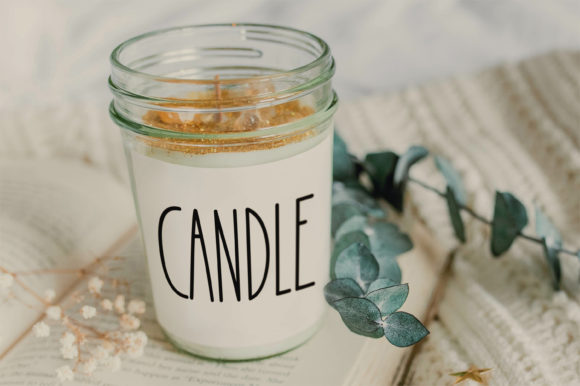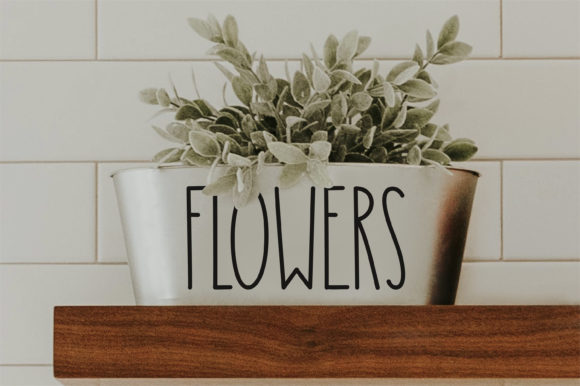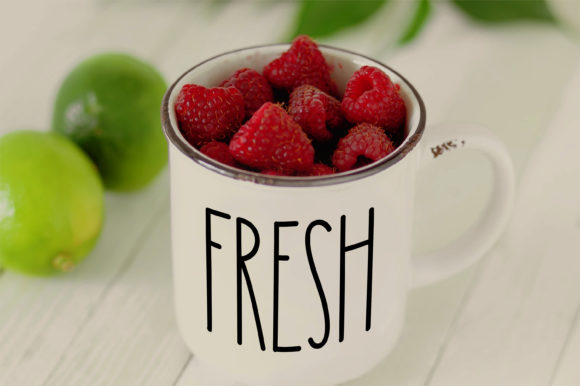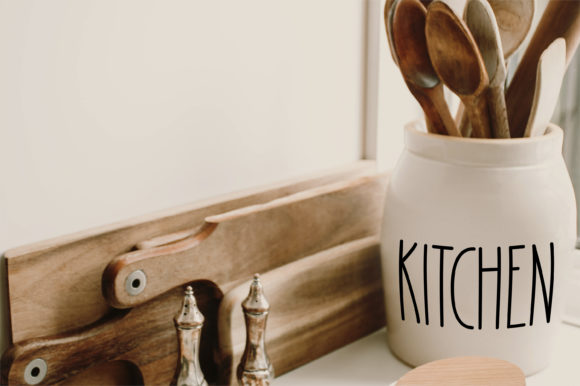
Farmhouse Font
Farmhouse is a tall and skinny handwritten font. It can be used for svg designs, mug designs, pottery, shirts, hats, tote bags, card making, wall art, interior prints, and various other creations.